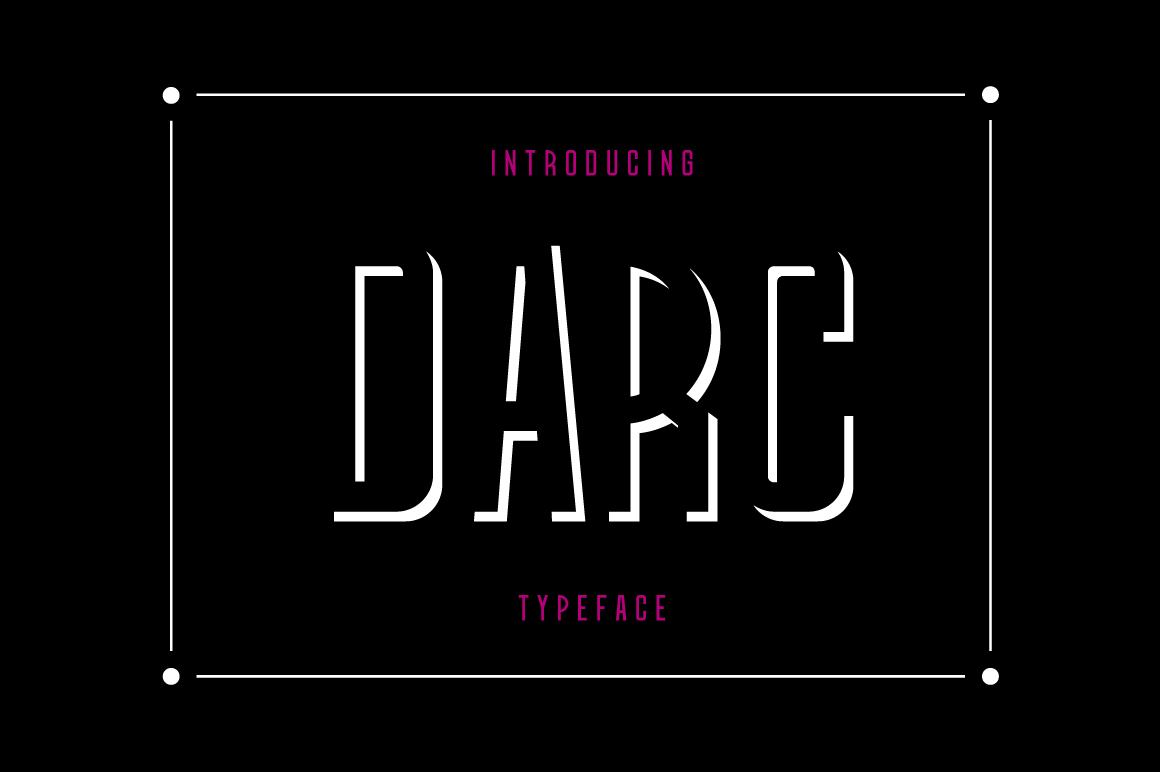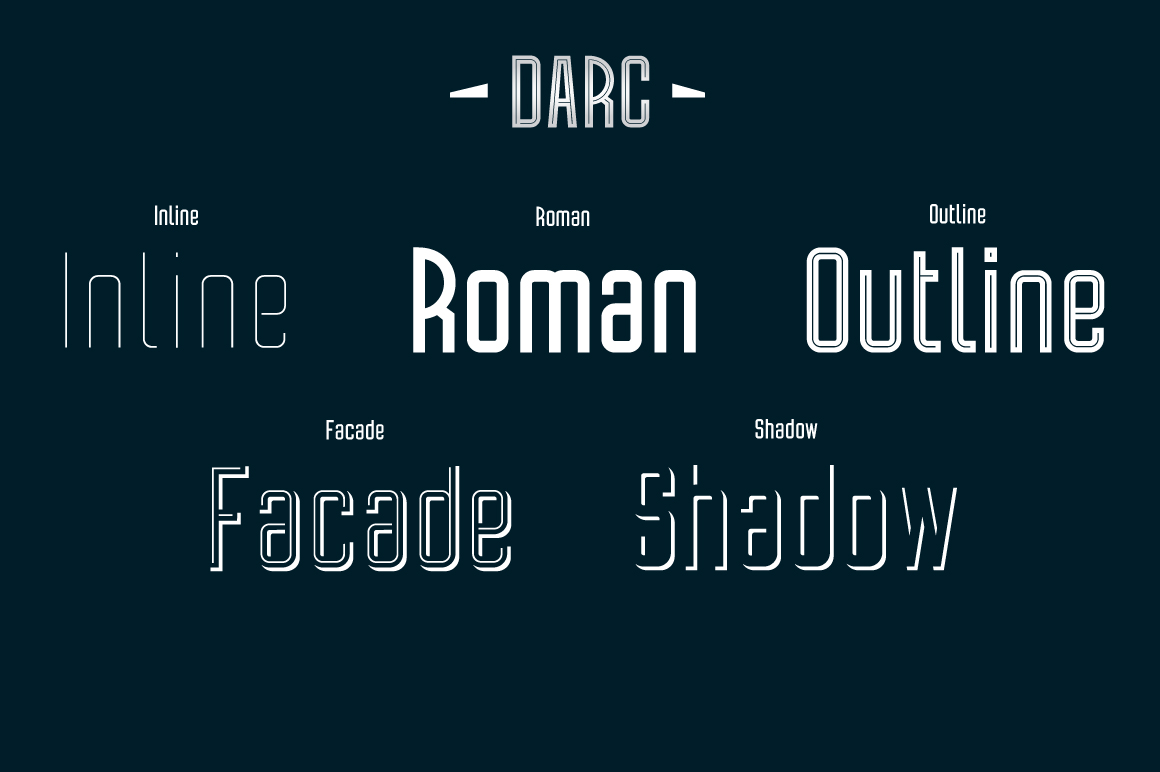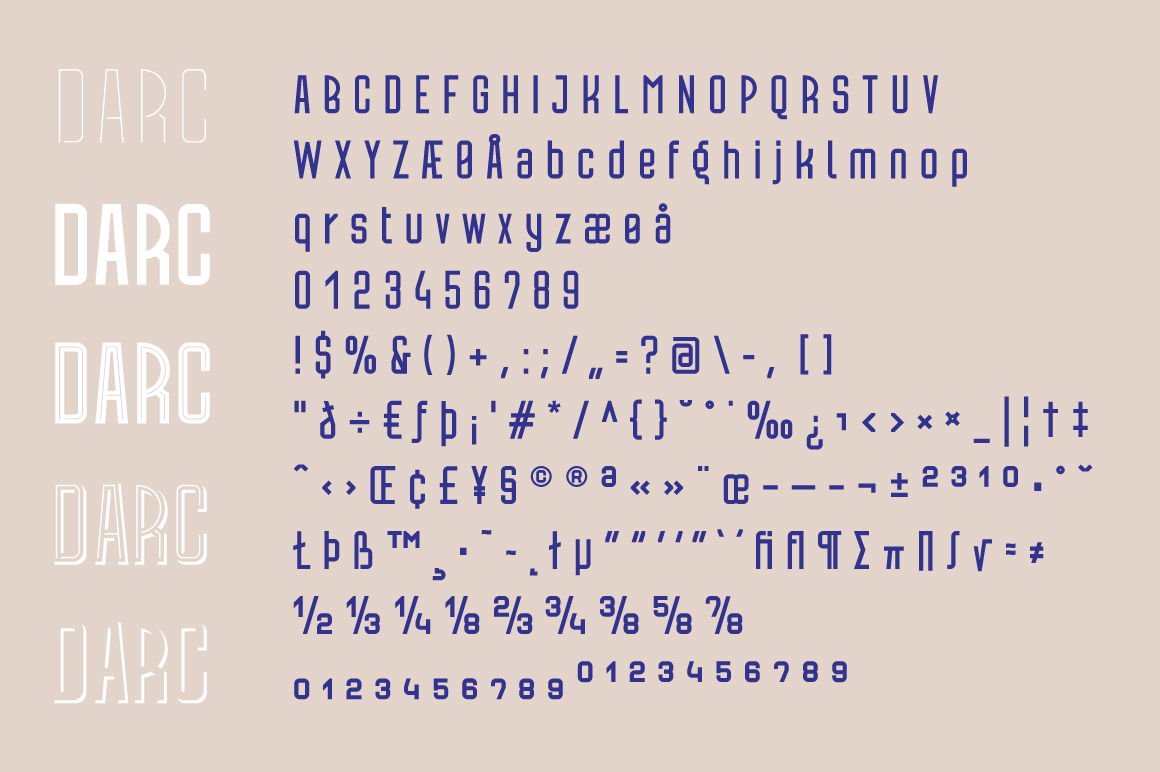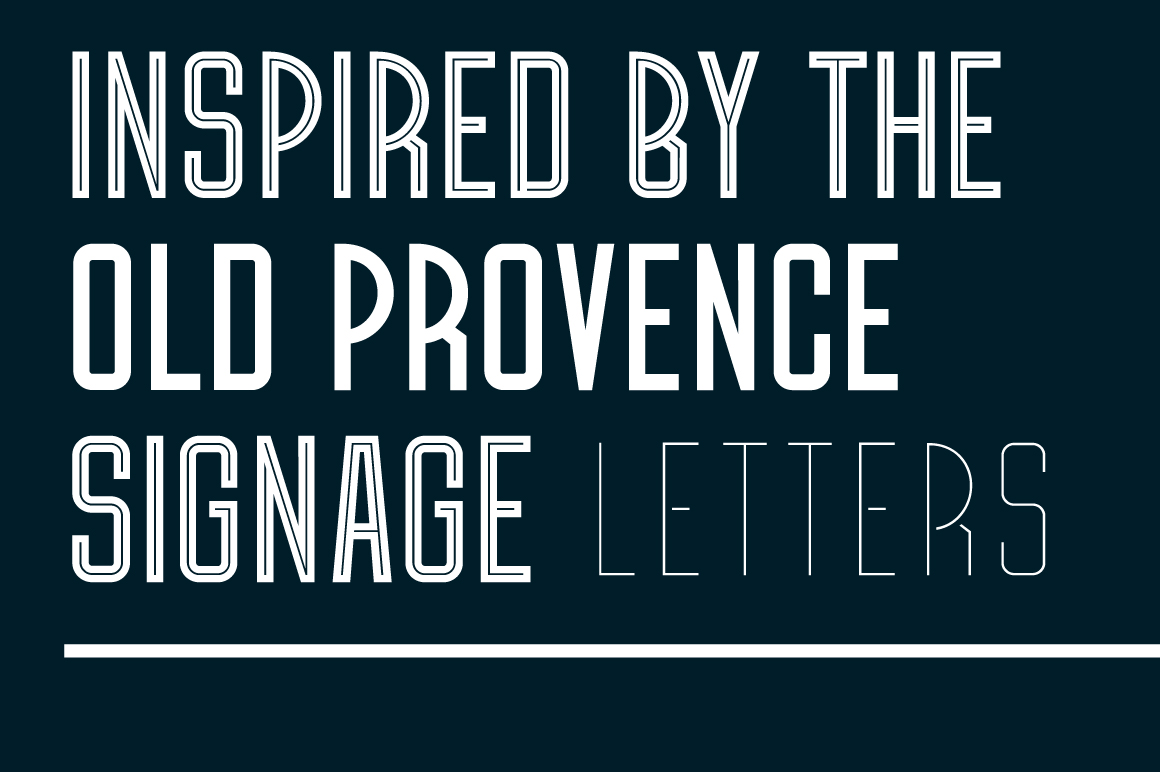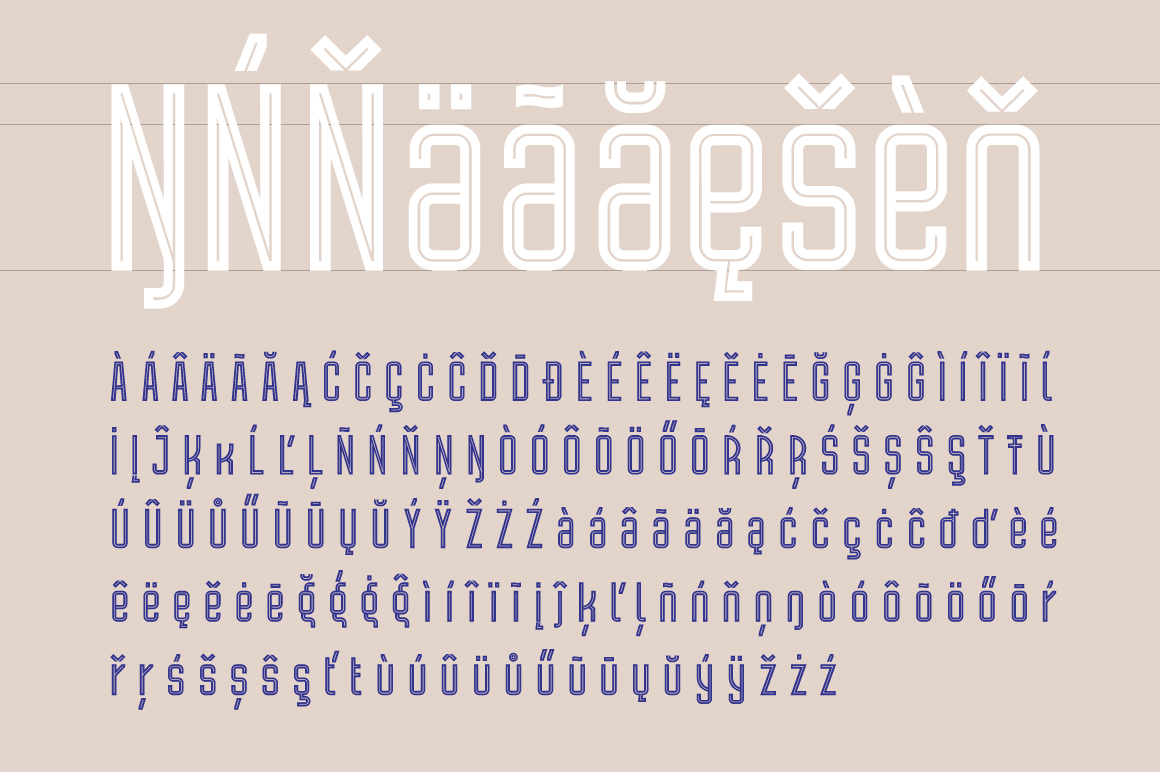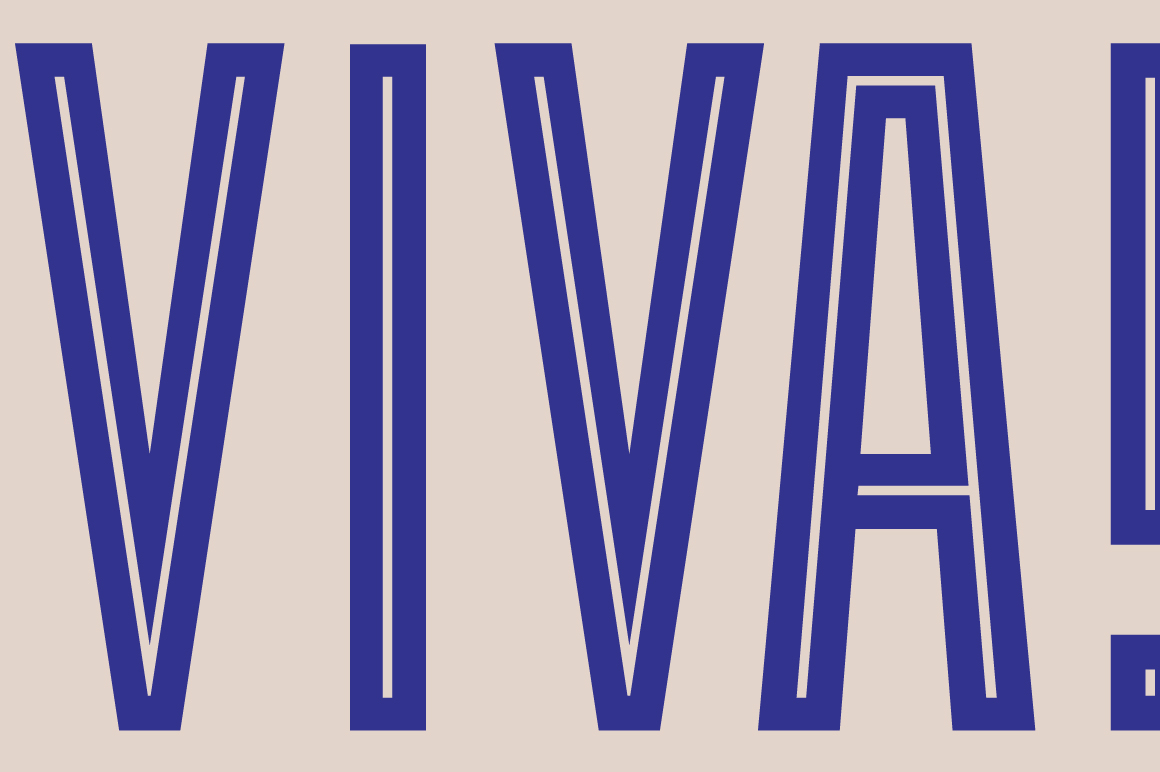
Darc Font: A Retro French-Inspired Masterpiece
Are you a designer or crafter looking for a unique and stylish font to add a touch of French flair to your projects? Look no further than Darc Font, a retro-inspired typeface that captures the essence of the south of France. In this article, we’ll dive into the story behind Darc, its features, and why it’s a must-have for any creative looking to add a dash of vintage charm to their work.
The Inspiration Behind Darc Font
Darc Font is the brainchild of a designer who drew inspiration from a trip to Nice, France. While exploring the city, the designer became fascinated with the old street signs, cafe facades, cinemas, and etiquette designs that seemed to transport them to a bygone era. The trip sparked a creative journey, with the designer collecting pictures of the vintage designs, sketching drafts, and eventually, developing the Darc Font.
The designer’s goal was to create a font that would not only pay tribute to the old-fashioned style but also infuse it with a modern expression. The result is Darc Font, a varied typeface with different styles that seamlessly blend retro charm with contemporary flair.
Key Features of Darc Font
So, what makes Darc Font so special? Here are some of its key features:
- Retro-French Inspiration: Darc Font is deeply rooted in the design traditions of the south of France, making it perfect for projects that require a touch of French elegance.
- Varied Styles: The font comes in different styles, allowing designers to experiment with various looks and find the perfect fit for their projects.
- Modern Expression: While Darc Font is undoubtedly retro-inspired, it also boasts a modern twist that makes it suitable for a wide range of applications.
- Embracing Vintage Charm: The font’s design is characterized by a distinct vintage feel, complete with subtle imperfections and nuances that add to its charm.
Who Can Benefit from Darc Font?
Darc Font is an excellent addition to any designer’s or crafter’s toolkit, particularly those working on projects that require a touch of French flair. Here are some examples of professionals who can benefit from Darc Font:
- Graphic Designers: Whether you’re working on branding, packaging, or advertising projects, Darc Font can add a sophisticated, vintage touch to your designs.
- Crafters: If you’re into crafting, scrapbooking, or DIY projects, Darc Font can help you create beautiful, eye-catching titles and headings.
- Web Designers: Darc Font can be used to create stunning website headers, titles, and other typography elements that require a unique, retro-French flair.
Darc Font is a stunning, retro-French inspired typeface that can add a touch of elegance and sophistication to any design project. With its varied styles, modern expression, and vintage charm, Darc Font is an excellent choice for designers and crafters looking to create unique, eye-catching works. Download Darc Font today and start exploring the world of French-inspired typography!